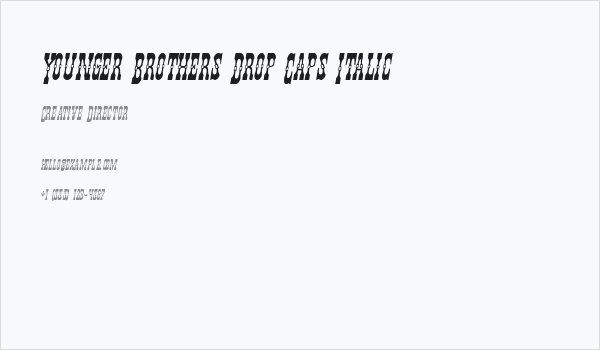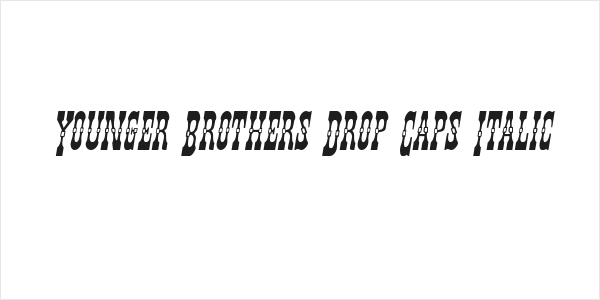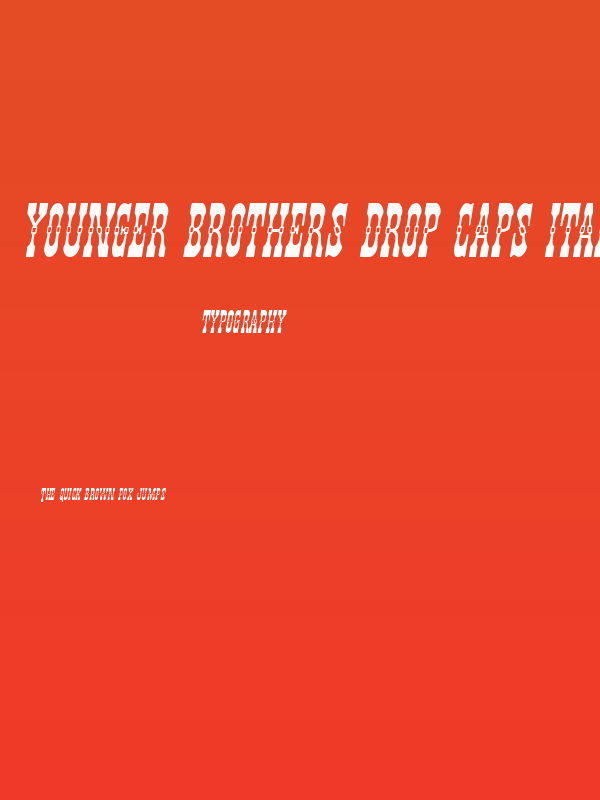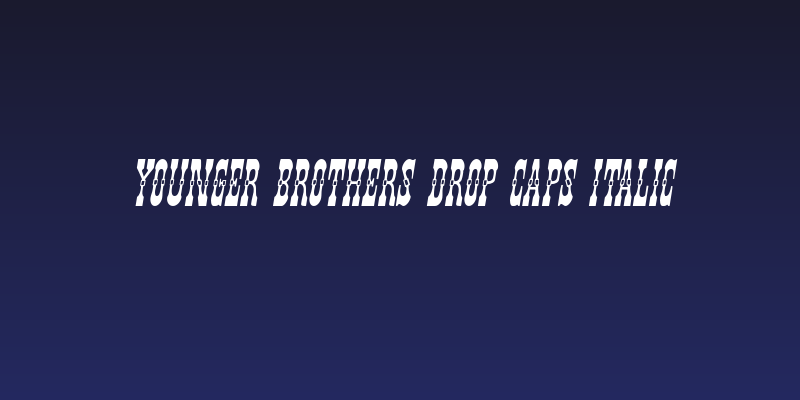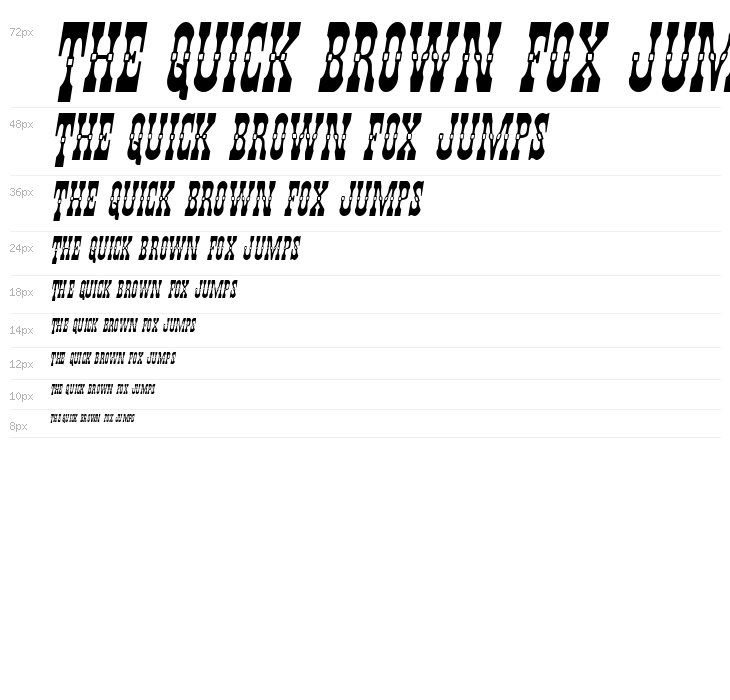
Younger Brothers Drop Caps Italic Font
Younger Brothers Drop Caps Italic Description
This font features a bold and dynamic style with a distinct italic slant, giving it a sense of movement and energy. The characters are designed with a decorative flair, incorporating unique cut-out elements that add an intriguing visual complexity. The uppercase and lowercase letters maintain a consistent style, with sharp angles and a strong presence. The numerals and special characters follow the same design principles, ensuring a cohesive look across all elements. This font's boldness and decorative nature make it stand out, while the italic slant adds a touch of elegance and sophistication.